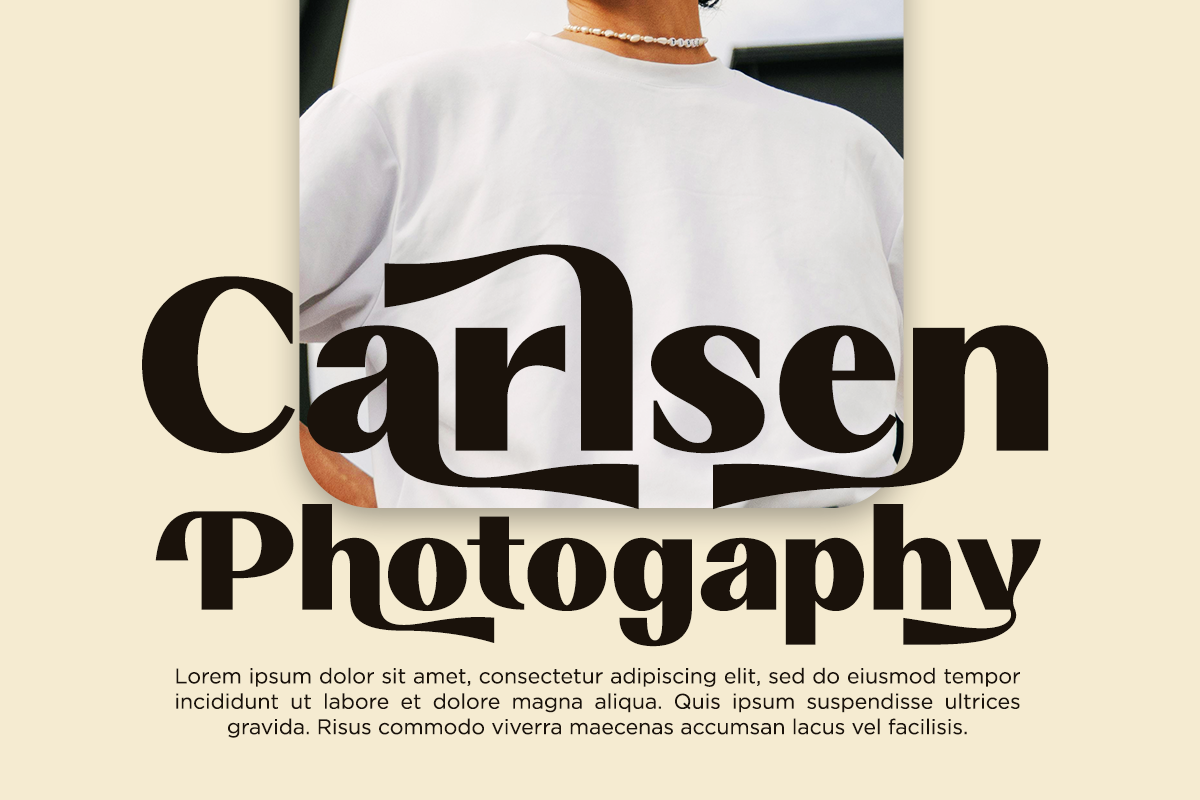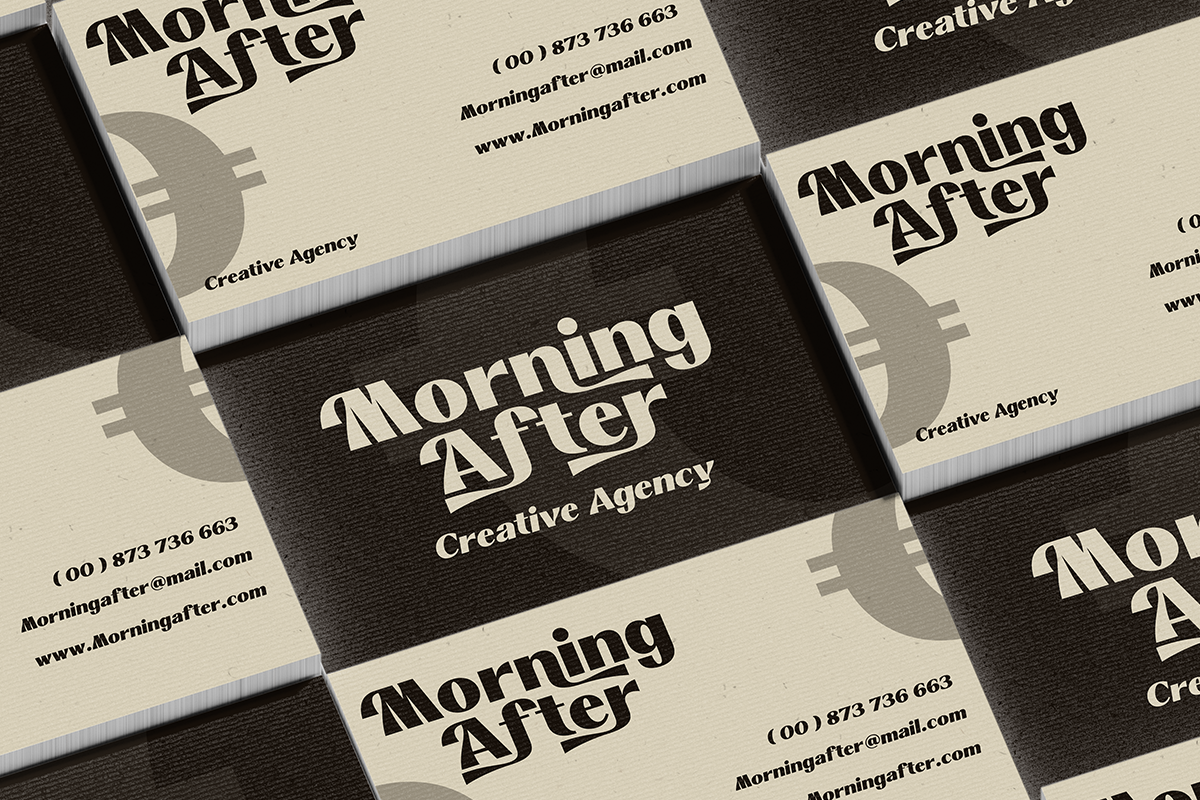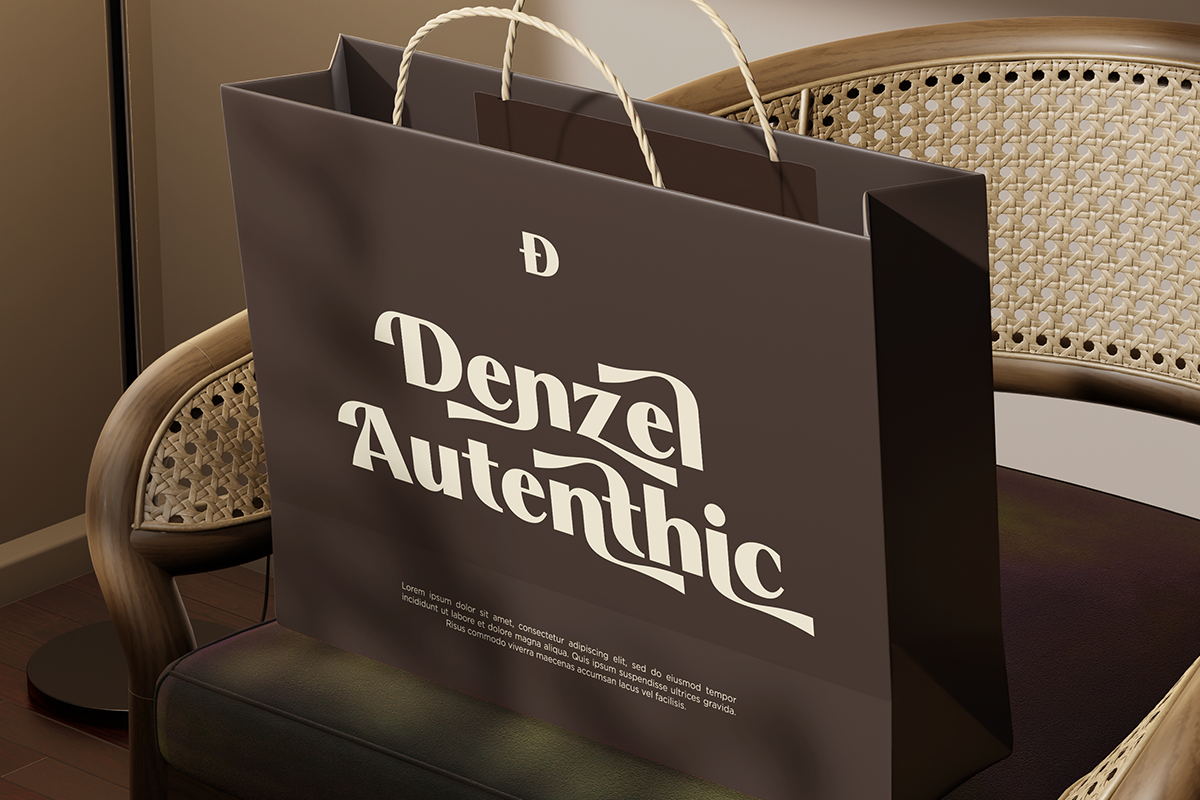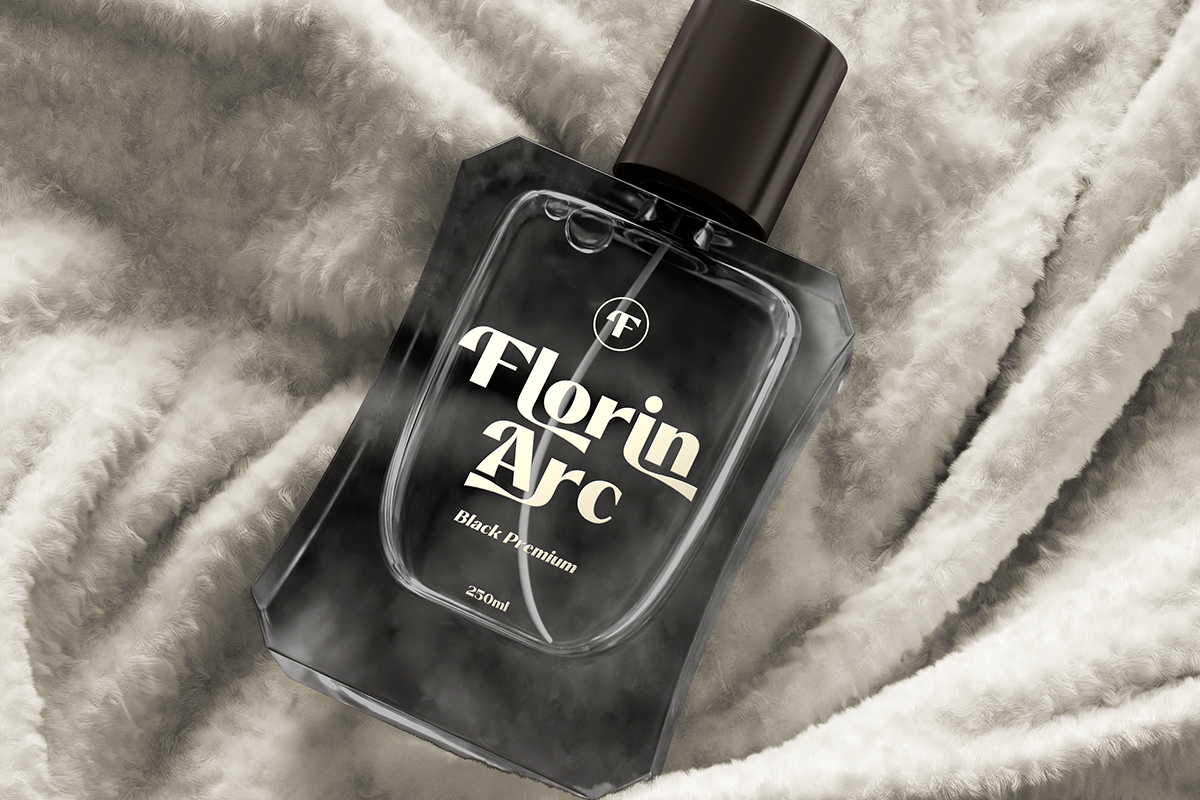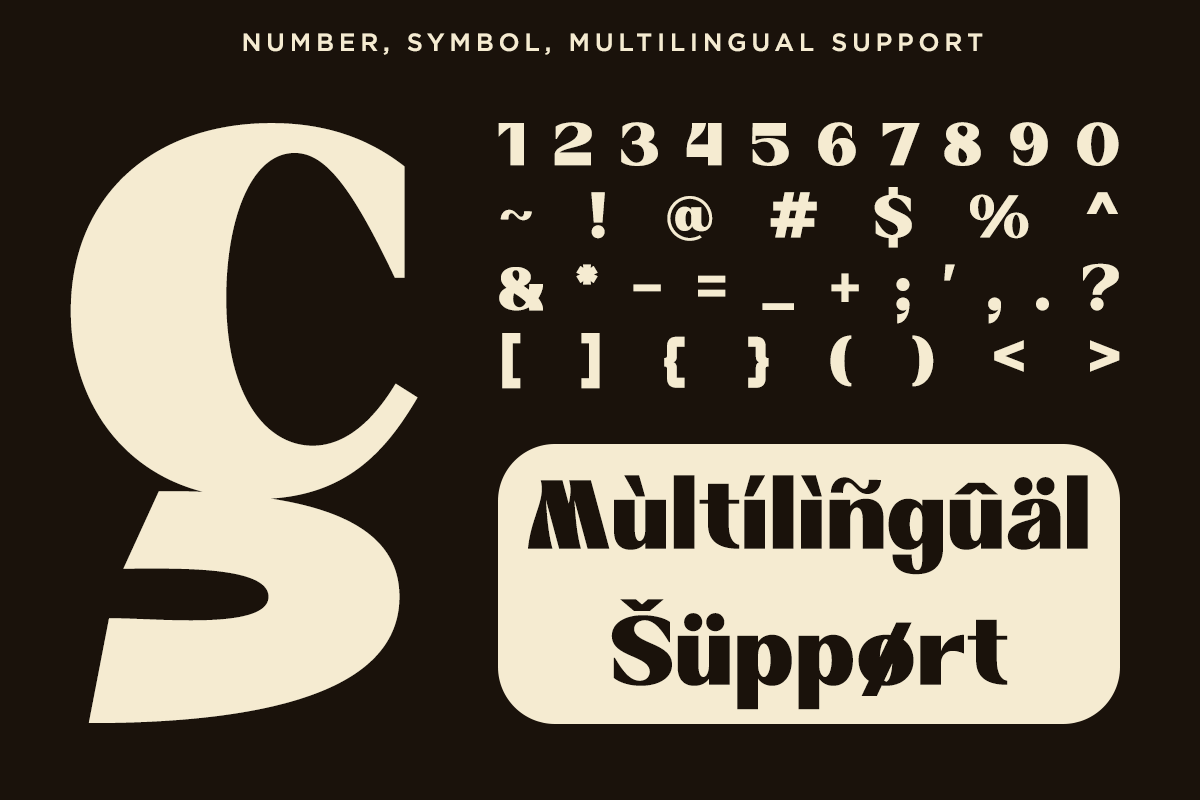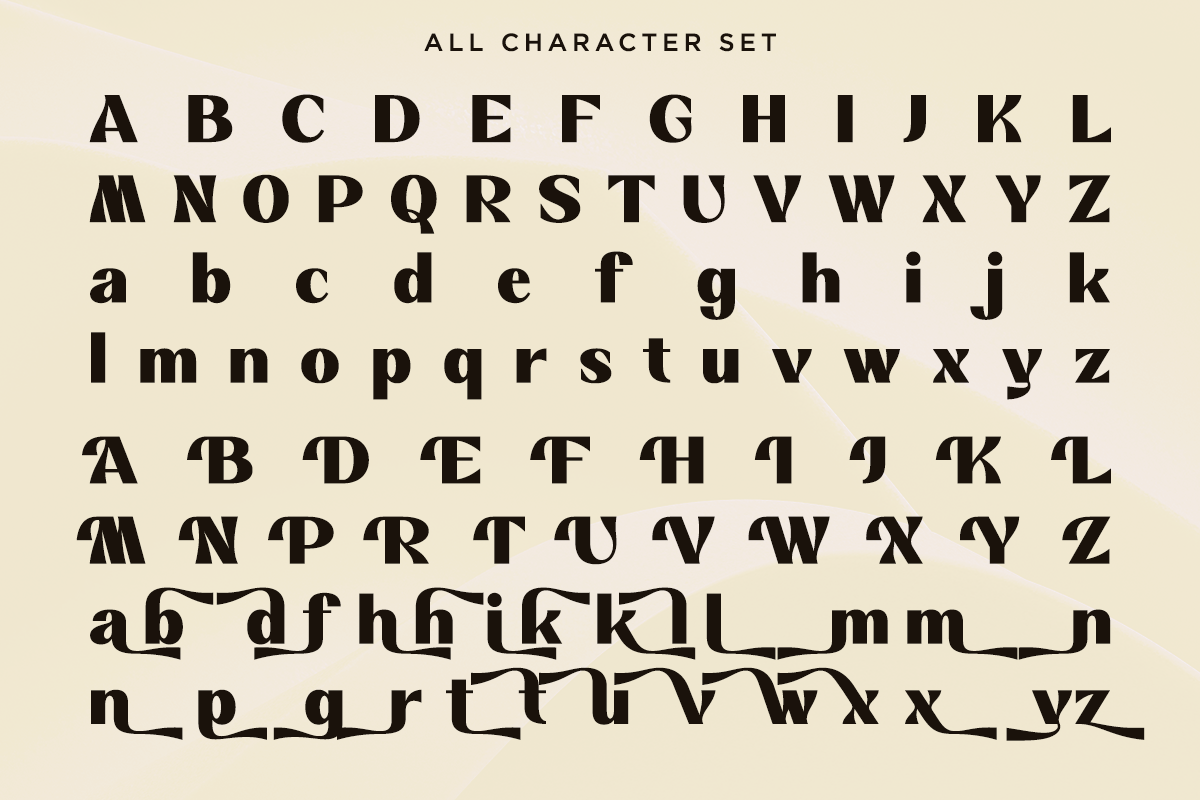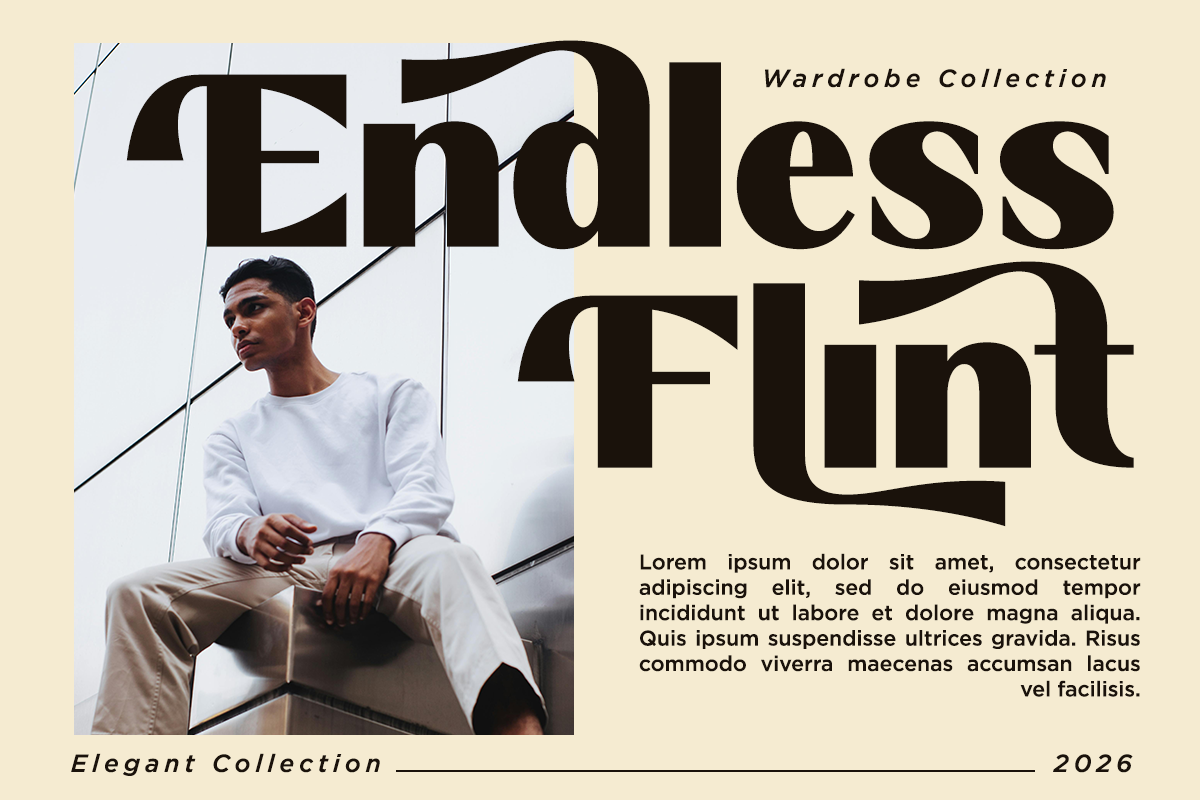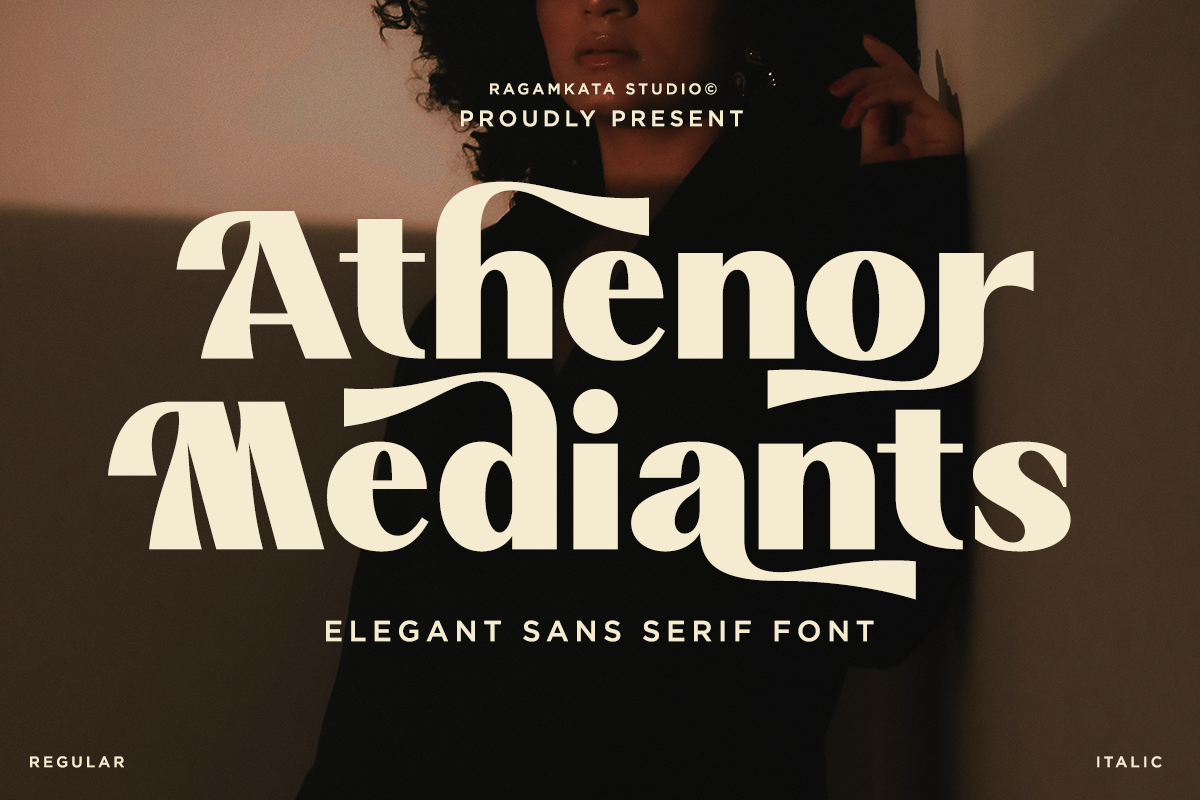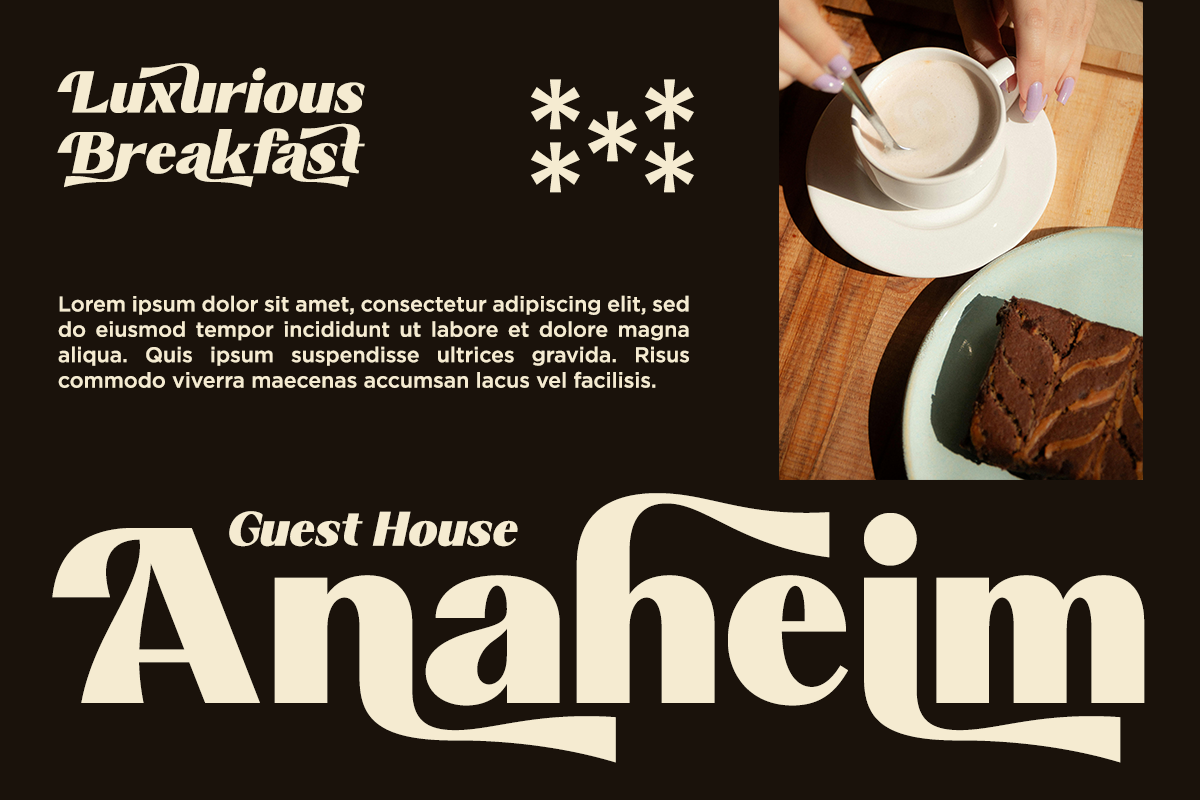
Athenor Mediants – Elegant Sans Font
Athenor Mediants is an elegant modern sans-serif font that blends classical sophistication with contemporary design. Featuring graceful curves, distinctive mediant-style strokes, and refined contrast, this typeface delivers a luxurious yet confident visual presence. Its unique letterforms feel both timeless and expressive, making it ideal for projects that demand personality without sacrificing readability. Perfect For branding, logos, fashion editorials, magazine headlines, luxury packaging, posters, social media graphics, website headers, book covers
- Stylish Alternate Set
- Symbol, and Number